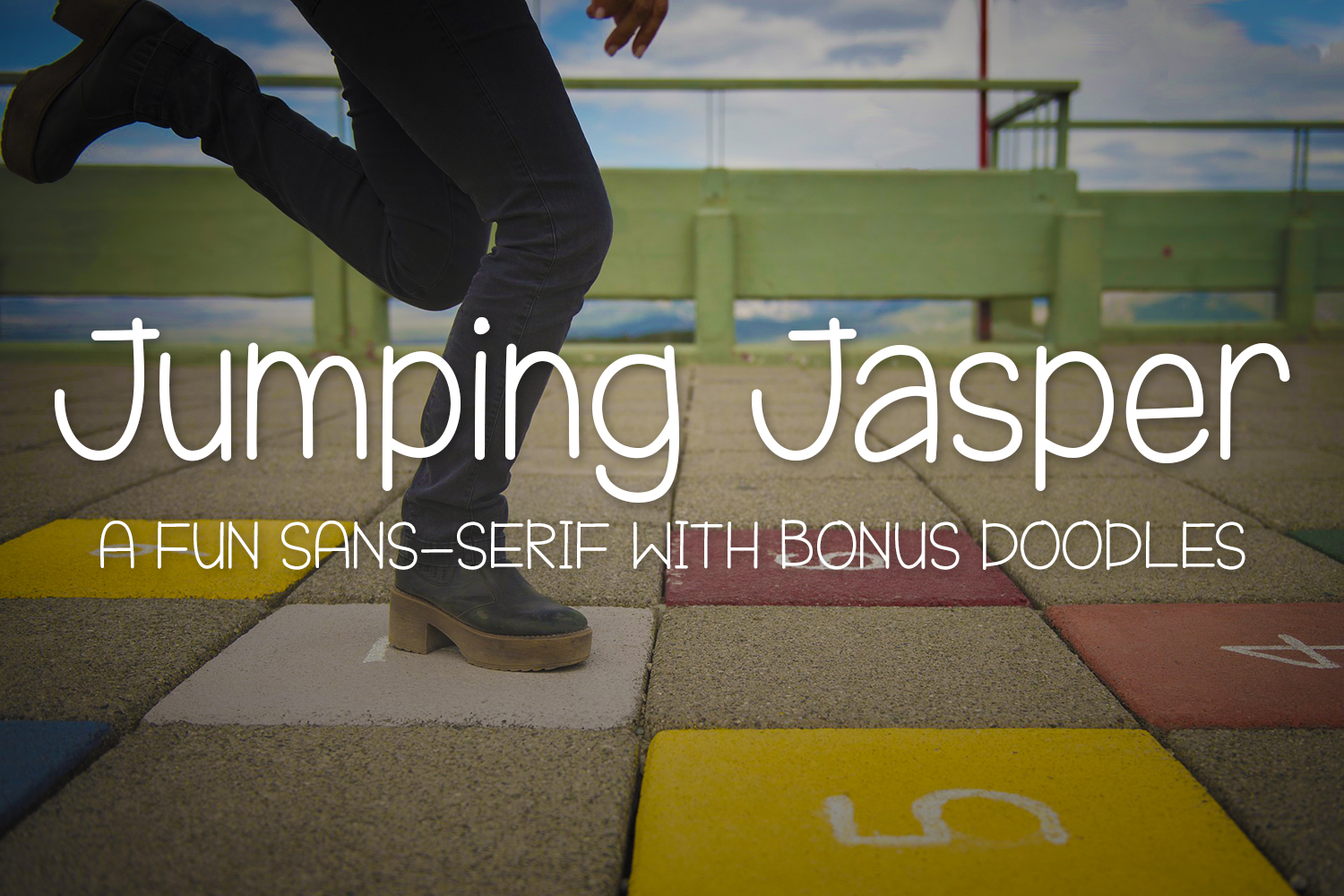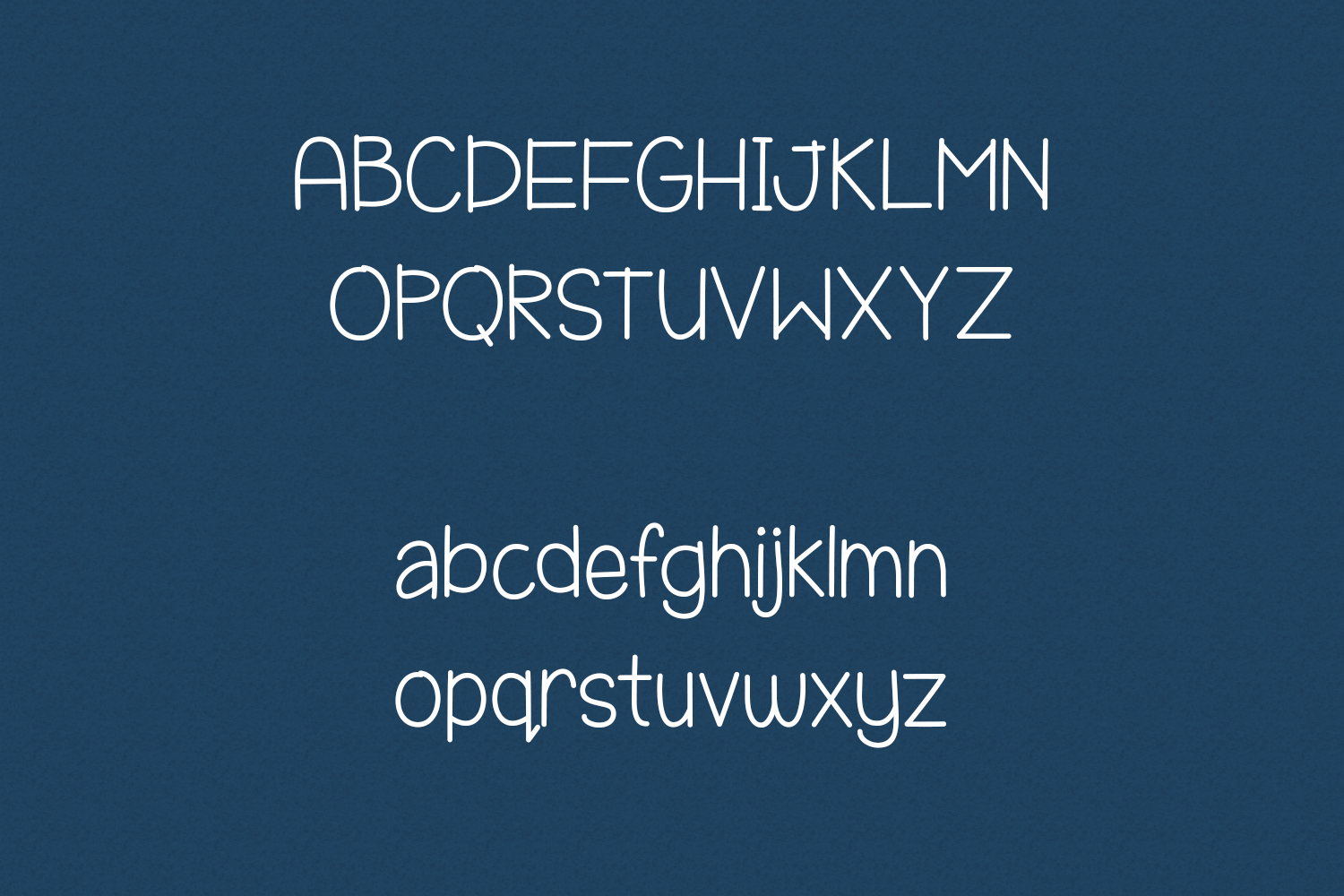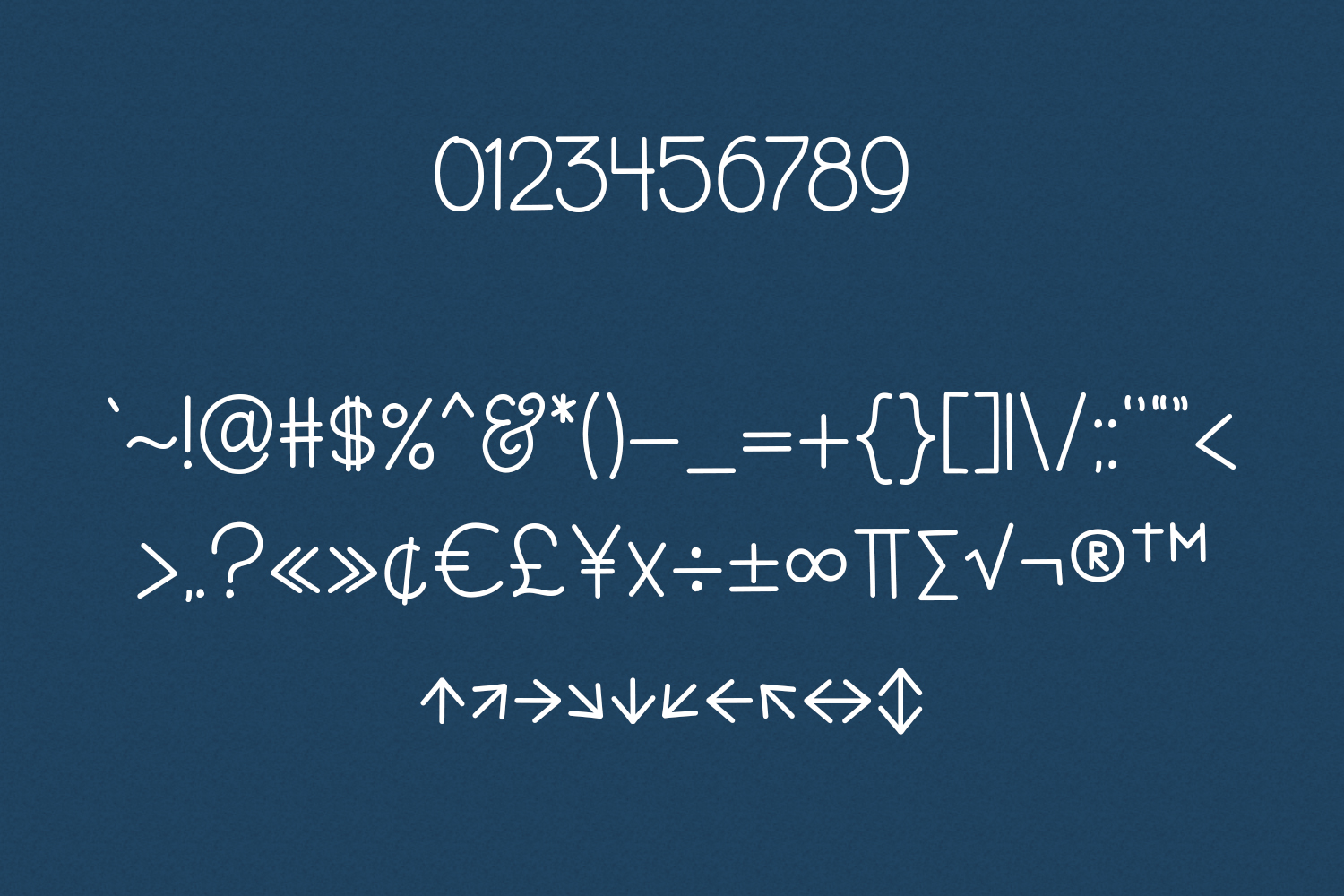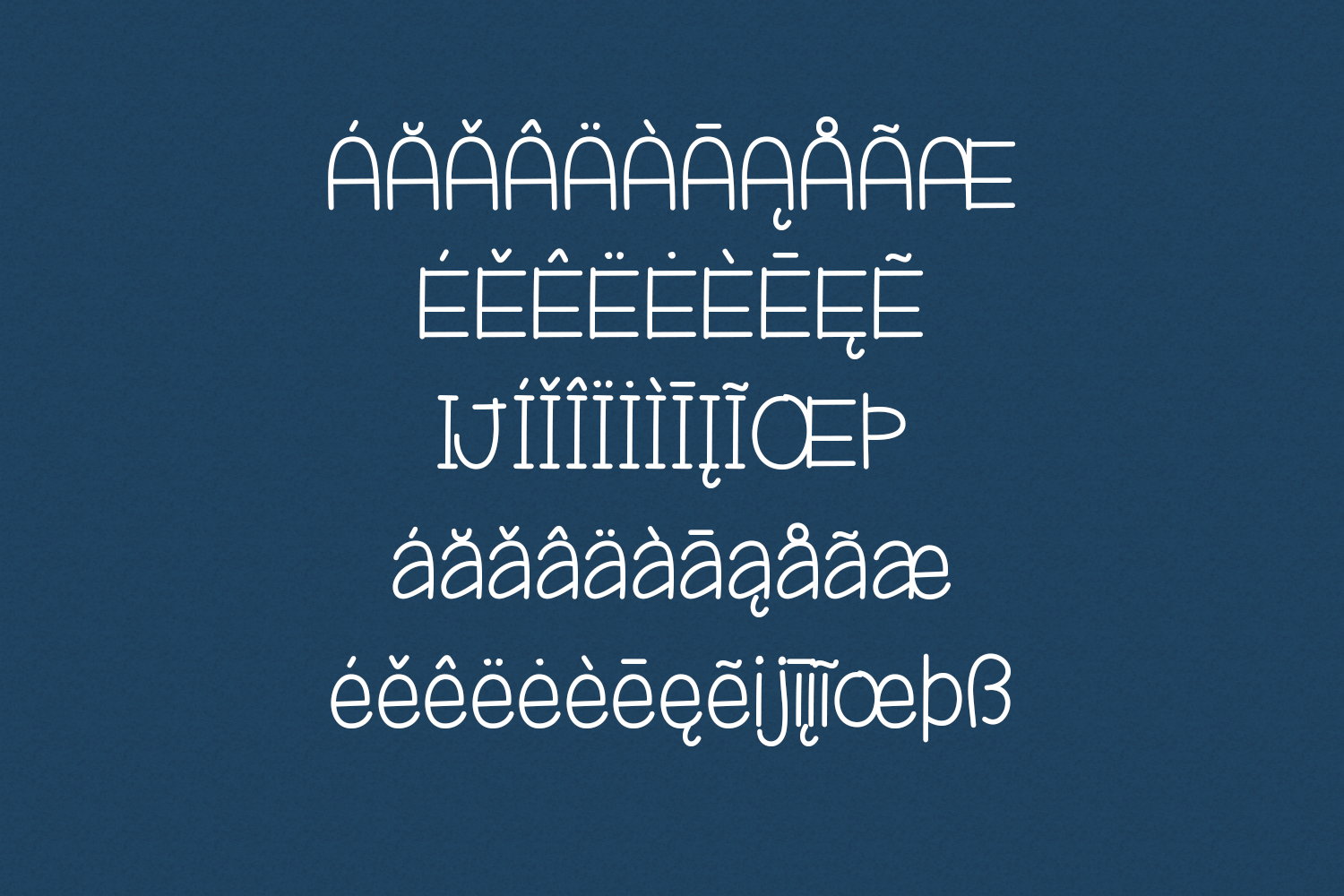
Jumping Jasper Font: A Playful Sans Serif + Cute Doodles!
About the Jumping Jasper Font
The Jumping Jasper Font offers a perfect balance of form and function for your design needs. Jumping Jasper is a fun handwritten font perfect for quirky designs. Jumping Jasper is an extremely versatile font set, filled with doodles to help compliment your designs.
Jumping Jasper’s playful energy makes it ideal for projects requiring a fun, approachable feel. It works exceptionally well in headlines, short bursts of text on posters or packaging, and social media graphics. Its hand-drawn quality lends itself to branding for children’s products, cafes, or craft businesses. However, avoid using it for body text or UI elements where readability is paramount; the informal style is not suitable for large blocks of text.
Pairing Jumping Jasper effectively depends on the desired balance. For a more sophisticated feel, consider pairing it with a clean, geometric sans-serif like Montserrat or a classic serif like Garamond. To emphasize its playful nature, a rounded sans-serif like Lato or a script font like Great Vibes could work well.
The overall personality is undeniably youthful and carefree, but also friendly and inviting, never overwhelming. Its versatility allows it to adapt to various design needs while maintaining its unique charm.